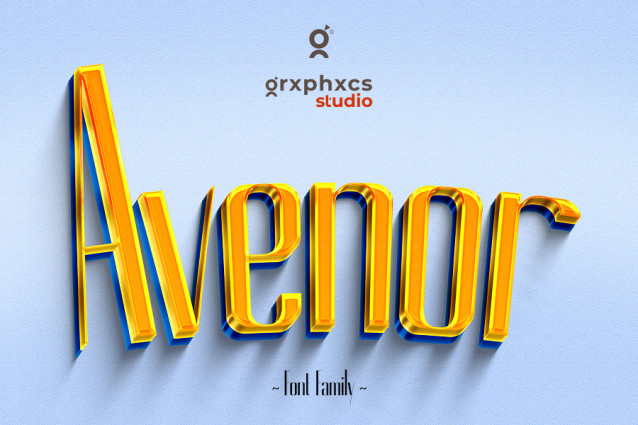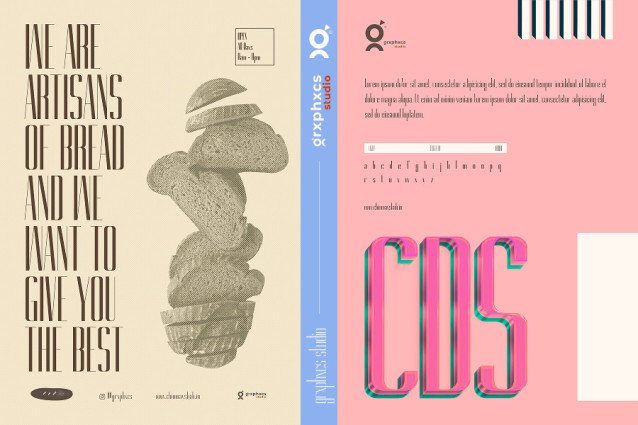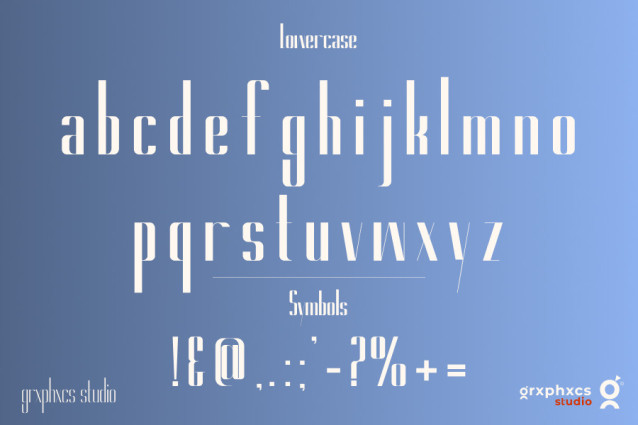
Avenor Font Family
Avenor Font Family a bold statement with our latest sans-serif font. With its clean lines and modern appeal, this font is sure to turn heads and leave a lasting impression. Perfect for headlines, logos, and any design that demands attention. It is both functional and stylish, making it a versatile choice f or a wide range of design projects.